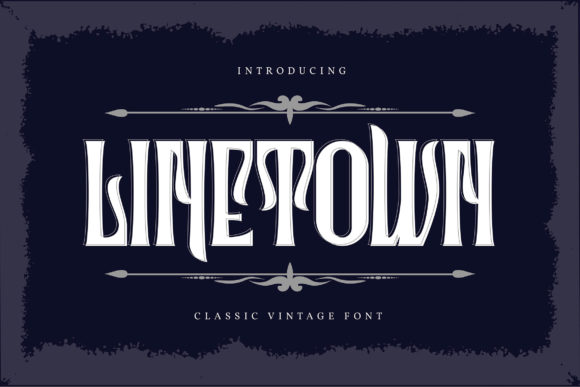
Introducing Linetown, the display font that's sure to make your designs pop!
With its cool, bold, and vintage style, Linetown is perfect for adding a touch of retro flair to your projects. Whether you're designing a gift card, a poster, or a social media post, Linetown will help you create something that's truly eye-catching.
Linetown is meticulously crafted to produce stunning results. Its clean lines and sharp angles give it a modern edge, while its vintage-inspired details add a touch of timeless style. The result is a font that's both unique and unforgettable.